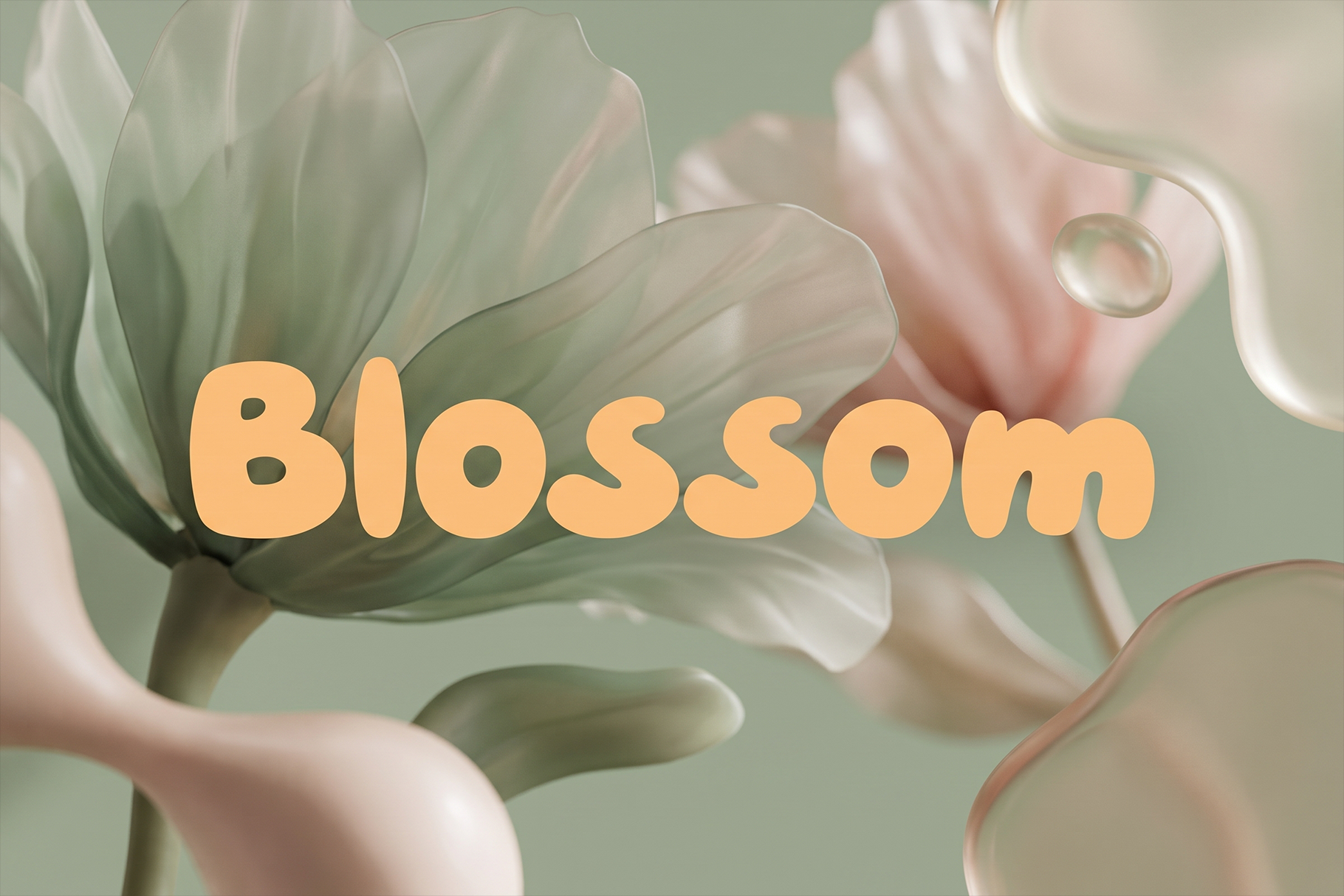
Blossom - Playful Display Font
Blossom is a cheerful and playful display font designed to fill your creative projects with happiness, imagination, and charm. Inspired by fun illustrations, children's creativity, and friendly typography, Blossom features bold, rounded letterforms that instantly create a warm and welcoming personality. Every character is carefully crafted to deliver excellent readability while maintaining a delightful appearance that makes every word feel lively and memorable.
Perfect for greeting cards, invitations, children's books, baby clothing, nursery decorations, birthday party supplies, posters, school projects, logos, branding, packaging, social media graphics, presentations, quotes, book covers, headlines, and creative marketing materials, Blossom adapts beautifully across both print and digital media. Its joyful style adds a colorful and playful atmosphere that helps every design stand out.
Whether you're creating educational materials, designing products for children, developing playful branding, or producing eye-catching promotional content, Blossom offers the versatility and creativity needed to bring your ideas to life. Its balanced proportions and friendly character make it suitable for both personal and commercial design projects.
With its charming personality and premium craftsmanship, Blossom transforms ordinary typography into delightful visual experiences full of warmth and creativity. It is an essential display font for designers looking to create fun, memorable, and engaging designs that leave a lasting impression.
Blossom Font Features: • Playful display style • Friendly and bold letterforms • Uppercase and lowercase characters • Numbers and punctuation • Perfect for greeting cards, invitations, children's books, baby clothing, logos, branding, posters, packaging, presentations, book covers, headlines, and social media • Suitable for both print and digital projects • OTF and TTF file formats included